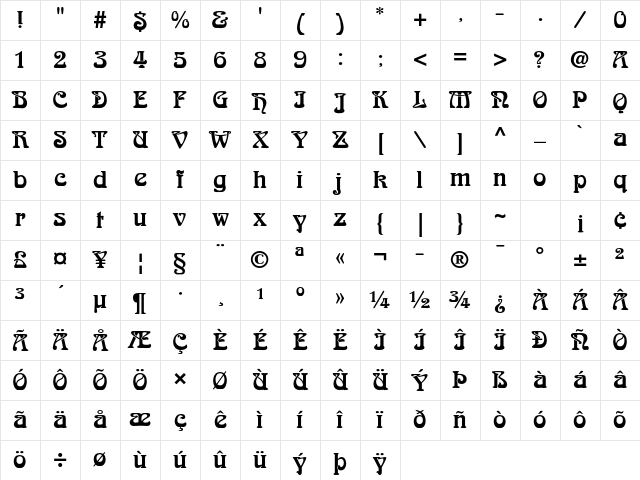
Arnold Bcklin Std Regular
Designer: O. Weisert
Design Context for Arnold Bcklin Std
Arnold Bcklin Std is a composed and adaptable typeface that performs quietly and consistently across a wide range of design contexts.